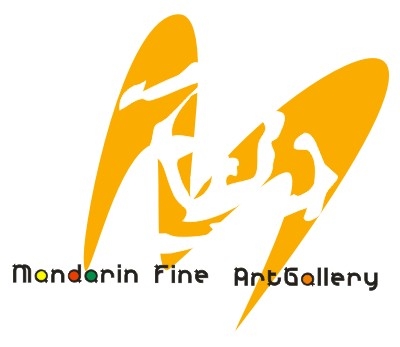
What's this Font?
I went through almost 550 similar style typefaces (my insomnia is your gain!) and didn't find it.
Since it seems to be a well thought out logotype (evidenced by the usage), I think you may have to assume that it is one-of-a-kind drawn art, and not an available typeface.
Does anyone know of a font that's even remotely close to this?